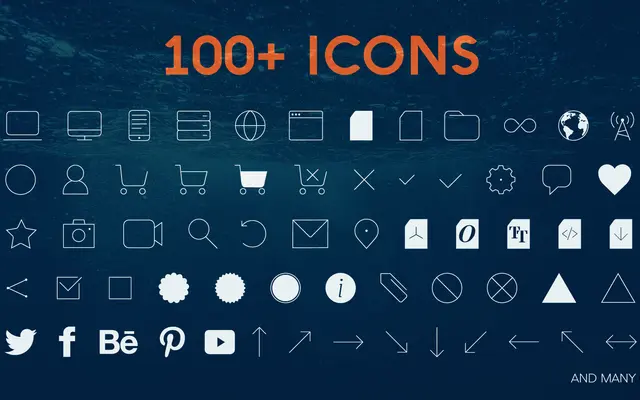
Aquawax Pro
Zetafonts · Francesco Canovaro · 2015
Originally created as a custom brand typeface in 2008, this geometric sans-serif carries distinctive logo-design details — a blade-tailed Q, fin-legged K and reversed W — across nine weights with matching italics.
Designed by Francesco Canovaro and first released commercially in 2015, the family gained wide recognition after Warner Bros used it for the Aquaman logo. A 2019 redesign by the Zetafonts team expanded the original six weights to nine, added full italic variants, introduced Cyrillic and Greek coverage across 218 languages, and incorporated OpenType features including small caps, old-style figures and multiple stylistic sets. The open letterforms and generous x-height keep it readable at text sizes despite its origins in display and identity work.
Aquawax Pro is a geometric sans-serif with open, modernist letterforms and a generous x-height; its rounded edges and distinctive logo-derived details such as the blade-tailed Q and reversed W sit firmly within the geometric sans tradition.